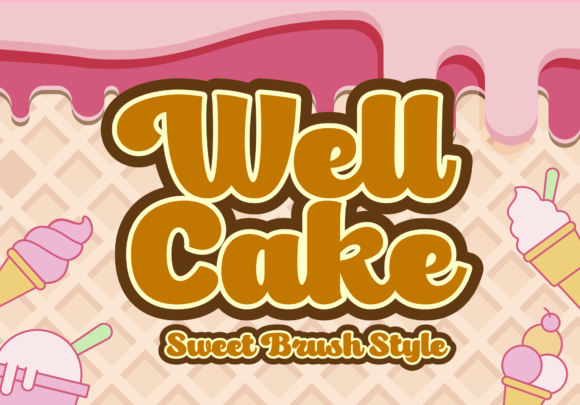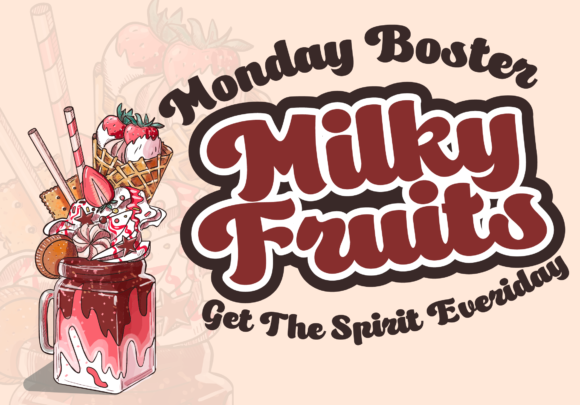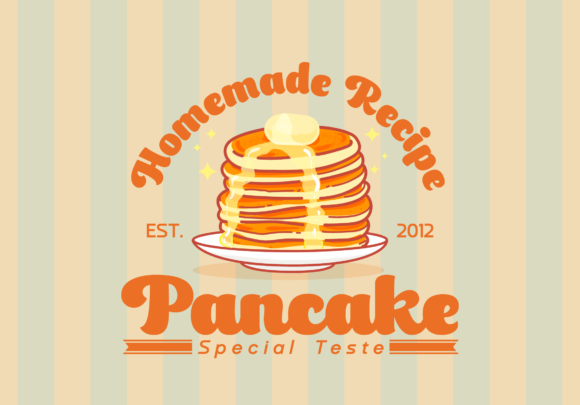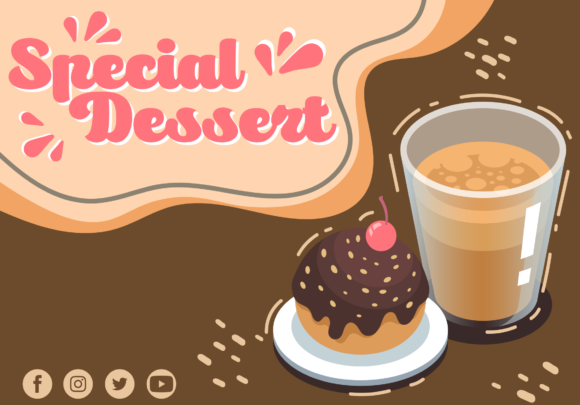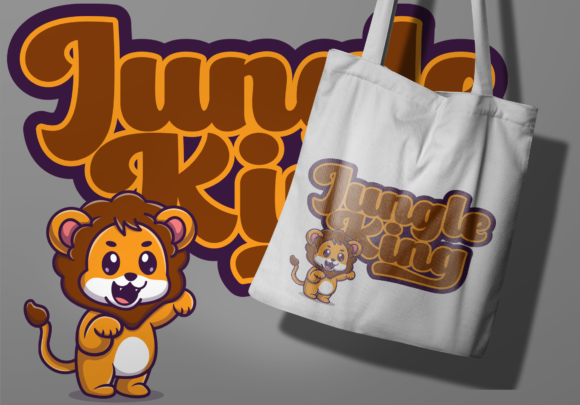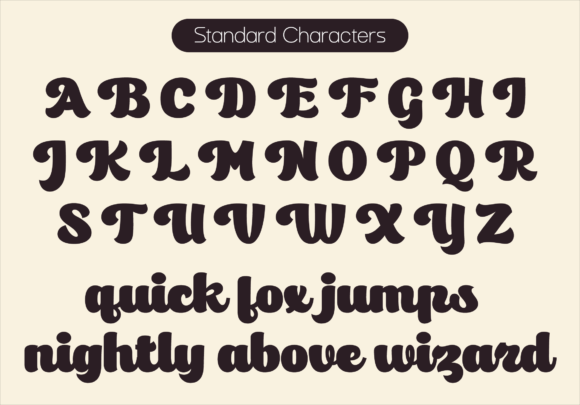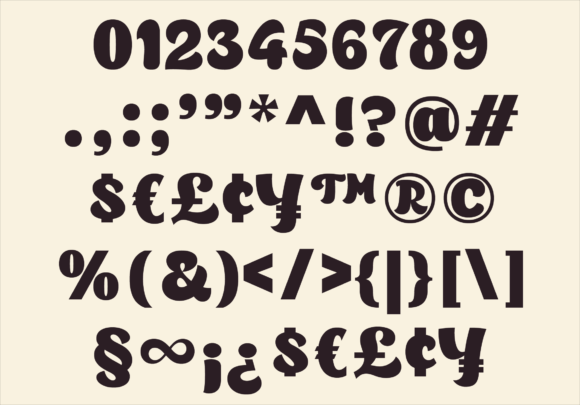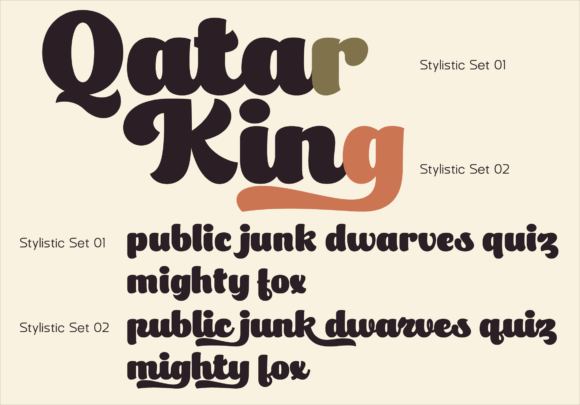
Well Cake Font
About Well Cake Font
Well Cake is a trendy and thick lettered handwritten font, featuring a retro vibe. It is PUA encoded which means you can access all of the glyphs and swashes with ease!